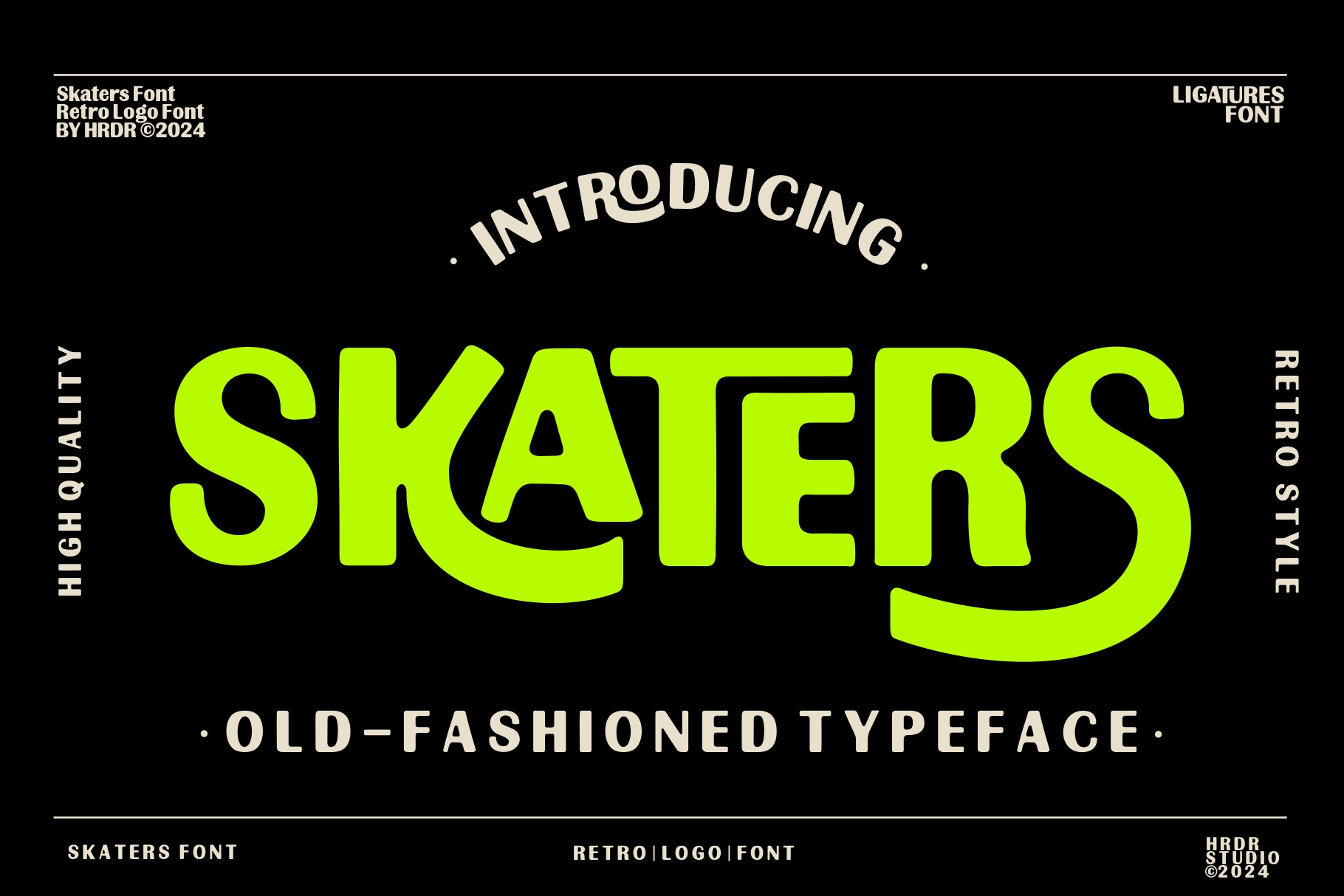
Skaters - Retro Font
Introducing Skaters is a retro sans serif font With thick and unique rounded edges and ligatures and alternate characters give it a slightly different presentation. This font is very suitable for suitable element for nostalgic themed designs, making a poster, vintage or retro stuff, fashion brand, magazine layout, food & beverages packaging, quotes, or simply as a stylish text overlay to any background image.
- numeric & Multilingual support
- Stylistic Alternates with ( Ss01,Ss02, Ss03 )